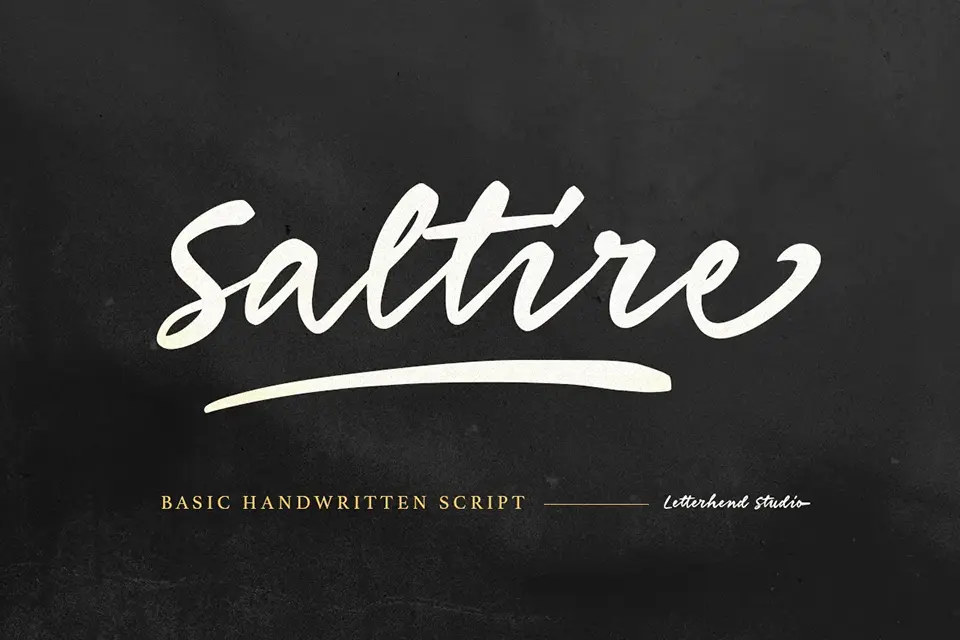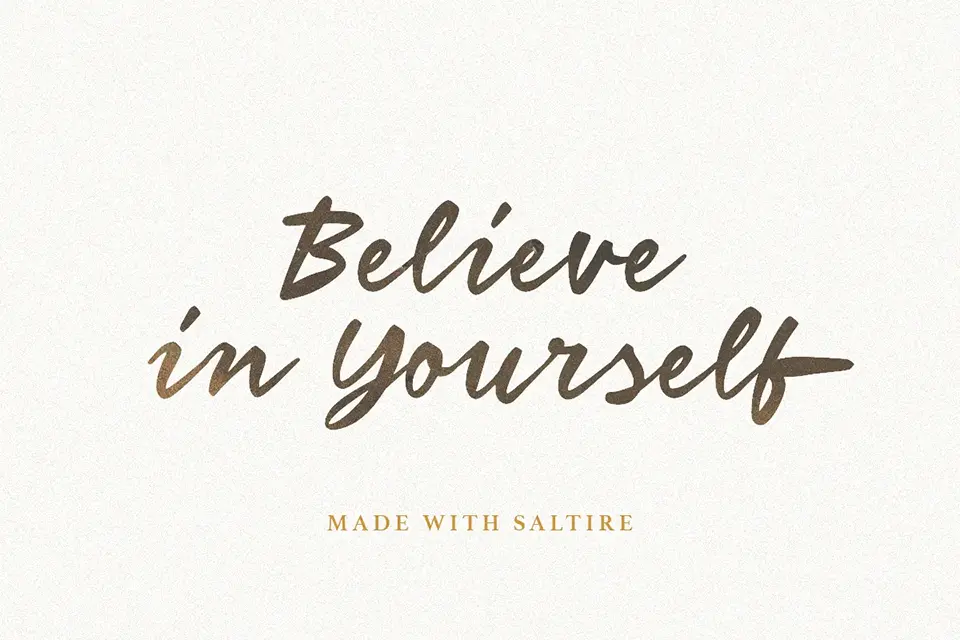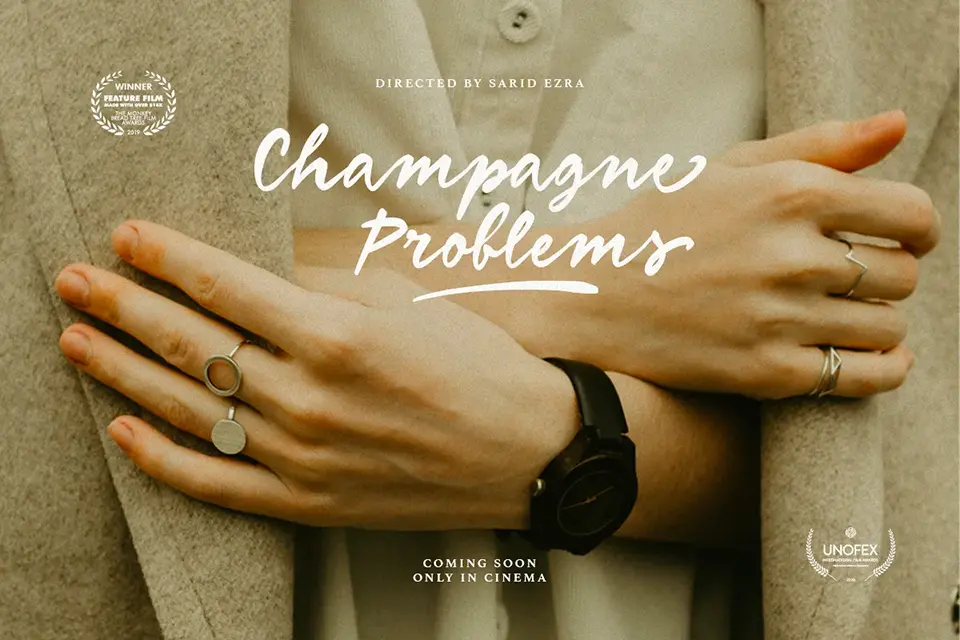
Saltire Font
Saltire Font is a modern script typeface characterized by its bold, playful design with thick, rounded strokes and a retro-inspired aesthetic. Featuring a balanced mix of uniformity and creativity, it offers uppercase letters with striking presence and lowercase characters that maintain a cohesive, lively style. The font includes multilingual support, alternates, swashes, and ligatures, enhancing its versatility for logos, branding, signage, invitations, and editorial projects. Designed with a slightly condensed form and clean lines, it bridges classic and contemporary aesthetics, making it suitable for both formal and creative applications.